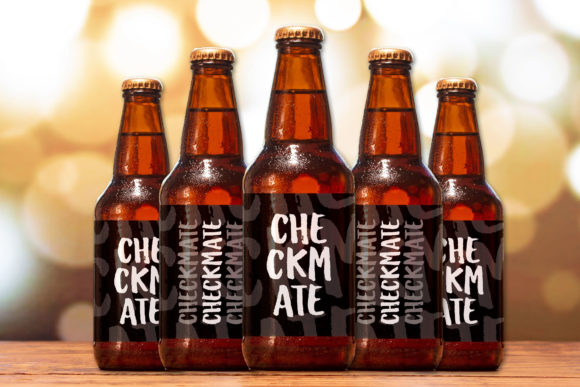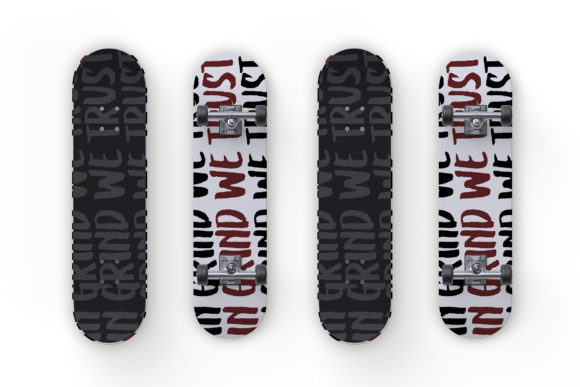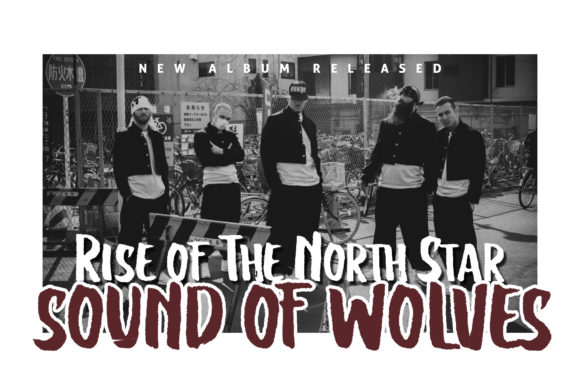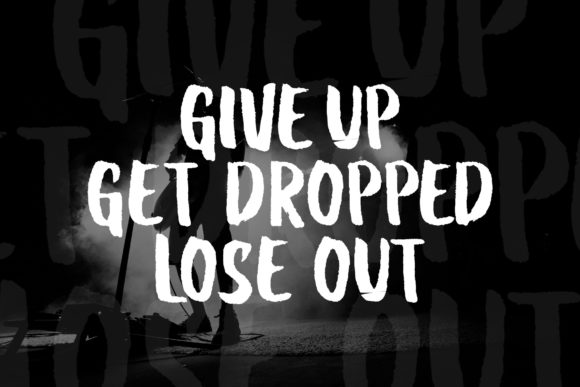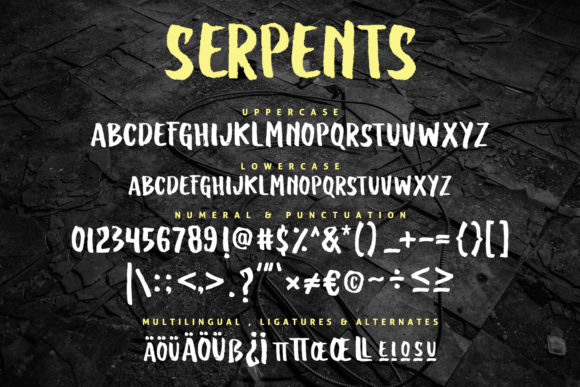
Introduction to Serpents Font
Have you ever found yourself staring at a blank page, desperately seeking the perfect font to bring your creative project to life? I know I have. The search can be overwhelming, but what if I told you that the perfect font is just a click away? Enter the Serpents Font, a simple yet authentic display font that’s sure to make your designs stand out.
As a designer, you know the importance of having high-quality design resources at your fingertips. And let’s be honest, who doesn’t love a free download? The Serpents Font is a valuable addition to any design arsenal, offering a unique and eye-catching style that’s perfect for any creative project.
With a transparent background and a clean, modern design, the Serpents Font is a versatile resource that’s sure to elevate your designs to the next level. Whether you’re working on a personal project or a professional client, this font is sure to make a statement. So why wait? Download the Serpents Font today and discover a whole new world of creative possibilities!
Serpents Font
- Features a unique, hand-drawn design with a transparent background, perfect for layered compositions
- Includes a range of characters, including uppercase and lowercase letters, numbers, and punctuation marks
Honest Review: Serpents Font
As a designer, I’m always on the lookout for high-quality fonts that can elevate my creative projects. I recently came across the Serpents Font, and I must say it’s been a game-changer for me.
- Unique design: The Serpents Font has a distinct, modern design that sets it apart from other fonts.
- Transparent background: The font has a transparent background, which makes it easy to use with any design element.
- Limited character set: The Serpents Font has a limited character set, which may not be suitable for long-form text.
- Not ideal for body text: While the font is great for headlines, it may not be the best choice for body text due to its unique design.
Overall, I’m really impressed with the Serpents Font. It’s a high-quality design resource that’s perfect for creative projects that require a modern, edgy look. While it has some limitations, I think it’s a great addition to any designer’s toolkit.
Serpents Font
The Serpents Font is a unique, high-quality design resource perfect for creative projects. This free download offers a versatile font that can be used in various applications, from graphic design to digital art.
The Serpents Font is perfect for:
- Branding and logo design.
- Graphic design and visual art.
- Presentations and documents.
Alternatives to Serpents Font
Pacifica is a high-quality, elegant script font that’s perfect for creative projects. It features a beautiful, flowing design that works well for headings and titles. For a free download, you can check out Google Fonts. When to use: Use Pacifico for wedding invitations, wedding stationery, and other elegant designs.
Comparison to Serpents Font: While both fonts are elegant, Pacifico has a more refined and sophisticated look. Serpents Font has a more whimsical and playful feel.
Great Vibes is a high-quality, cursive font that’s great for creative projects. It features a fun, energetic design that works well for headings and titles. For a free download, you can check out Google Fonts. When to use: Use Great Vibes for music posters, social media graphics, and other fun designs.
Comparison to Serpents Font: While both fonts are fun and energetic, Great Vibes has a more playful and carefree feel. Serpents Font has a more mysterious and enchanting quality.
Dancing Script is a high-quality, elegant script font that’s perfect for creative projects. It features a beautiful, flowing design that works well for headings and titles. For a free download, you can check out DaFont. When to use: Use Dancing Script for wedding invitations, wedding stationery, and other elegant designs.